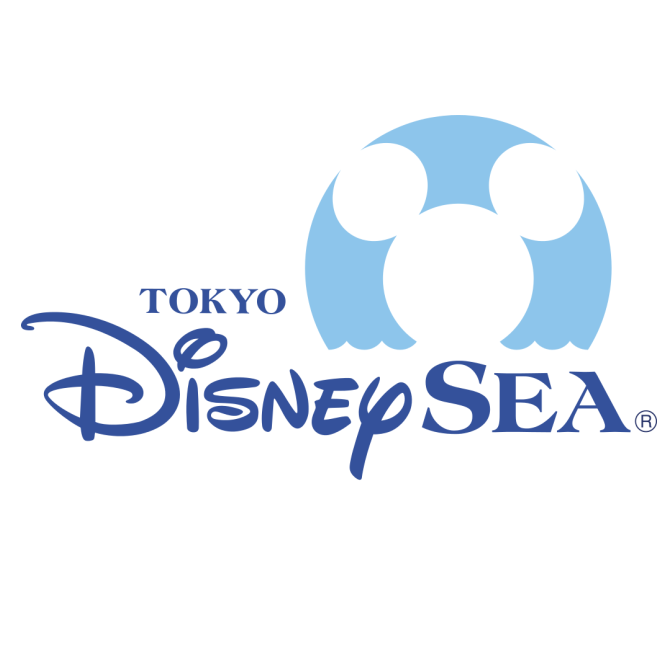
Tokyo DisneySea Font
EntertainmentTokyo DisneySea is a theme park located in Tokyo, Japan. It features various attractions and shows inspired by the legends of the sea, including Mermaid Lagoon and Mysterious Island.
The serif font used in the DisneySea logo's has a close resemblance to Americana ExtraBold. Created by type designer Richard Isbell in 1965. You can learn more about the font here.